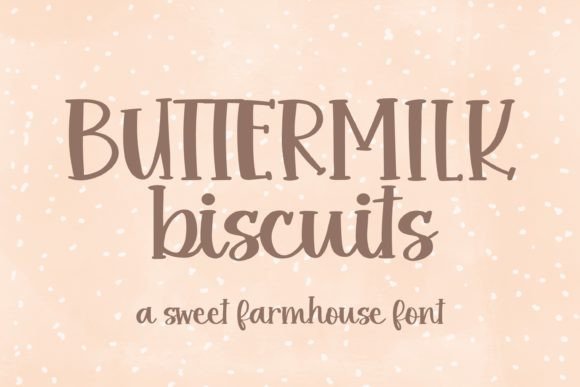
Introducing Buttermilk Biscuits, the Best Font For Banner Cricut that will instantly elevate your creative projects! This charming Farmhouse Handwritten Font, created by designingdigitals, is the perfect addition to your font collection.
Crafted specifically for Cricut, Buttermilk Biscuits is a font that effortlessly combines playfulness and authenticity. Its delightful handwriting style adds a touch of warmth and charm to any design.
With Buttermilk Biscuits, the possibilities are endless. Whether you're creating rustic farmhouse signs, personalized stationery, or heartfelt handmade cards, this versatile font will bring your vision to life.
Imagine the cozy atmosphere you can create with this enchanting farmhouse handwritten font. Let your imagination run wild as you design captivating banners, captivating logos, and eye-catching social media graphics.
Dive into a world of creativity with Buttermilk Biscuits. Its unique and distinctive style sets it apart from other fonts, making it a standout choice for your projects.